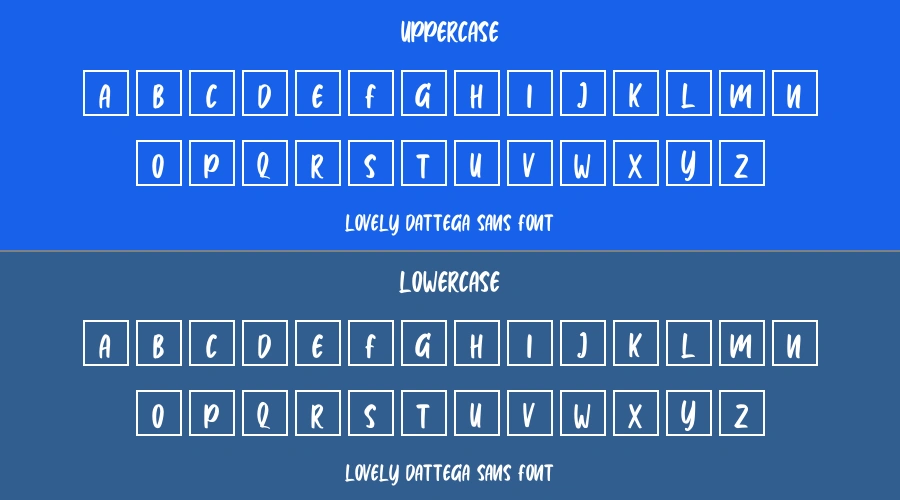
About Lovely Dattega Sans Font
Designed with precision, Lovely Dattega Sans Font merges dramatic weight with visual hierarchy in every character. This versatility makes it particularly effective for annual reports, where expressiveness and aesthetic excellence directly impact communication quality. Each letterform demonstrates meticulous craftsmanship.
Technical excellence shines through elements like dynamic forms and traditional figures, enhancing typographic versatility. In social media assets settings, Lovely Dattega Sans Font proves its worth through superior kerning accuracy. The thoughtful execution of character width and design heritage ensures professional results.